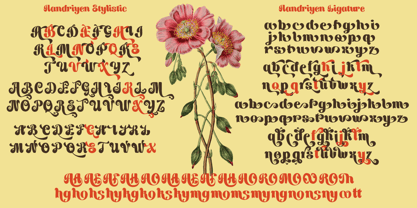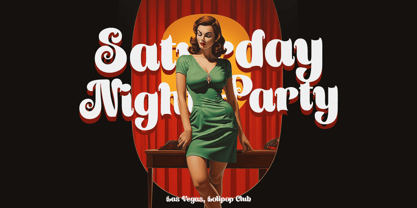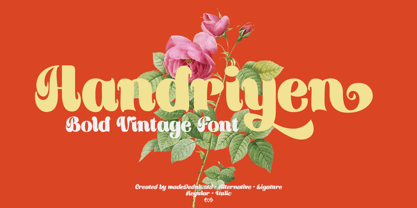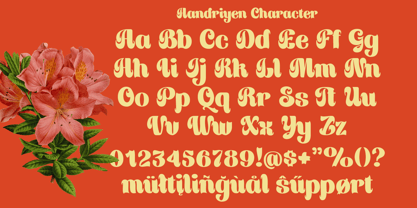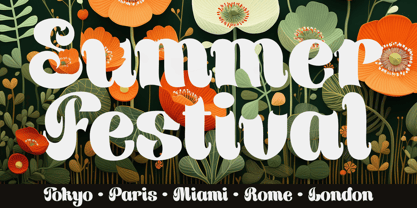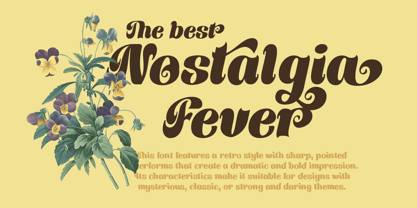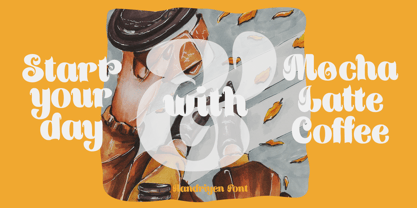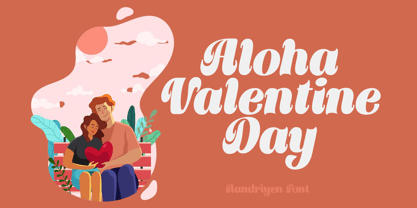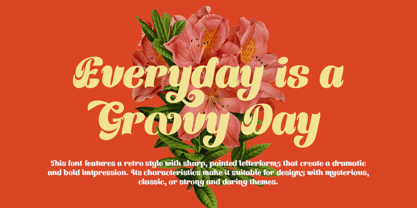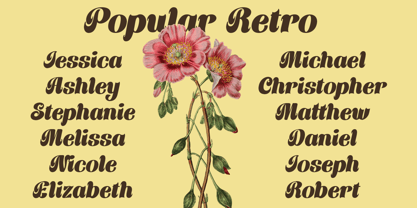
Handriyen
by madeDeduk
The Handriyen Font Family was designed by madededuk and published by madeDeduk. Handriyen contains 2 styles and family package options.
Handriyen is a bold vintage script font that features groovy letterforms, creating a dramatic and striking impression. Its unique characteristics make it ideal for designs that embody soft, classic, or strong and daring themes. With its curly style, this font offers numerous alternates and ligatures, enhancing its versatility. Perfect for poster designs, book covers, merchandise, branding, advertising, magazines, album covers, wedding invitations, and more, Handriyen adds a touch of elegance and flair to any project.